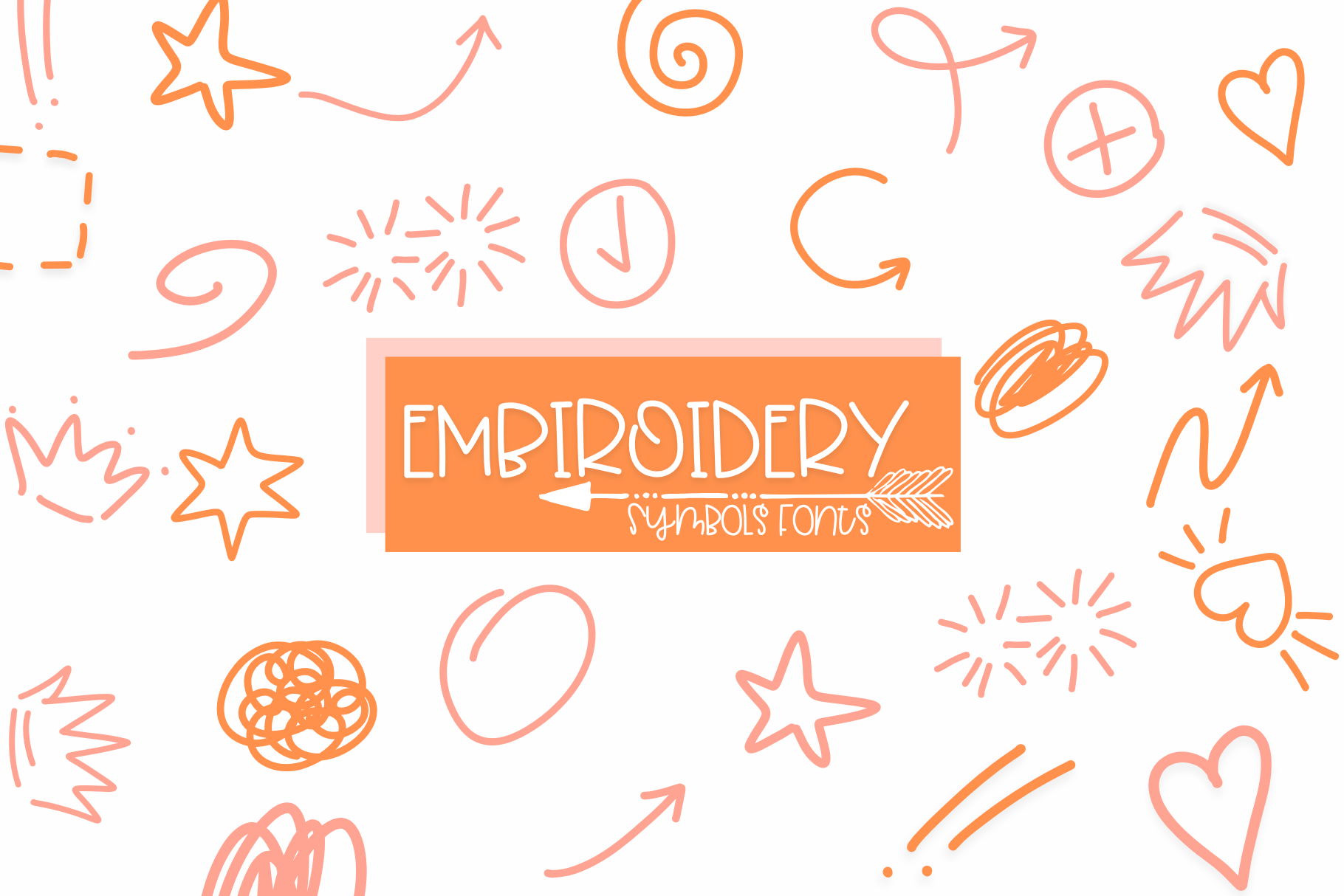
Embroidery | Symbols Fonts
Embroidery is a symbol fonts. You can use it for taking notes, writing a diary, or making greeting cards. However, you can still use it for other designs, such as banners, content, mugs, cards, shirts, stationery, social media posts, and more!